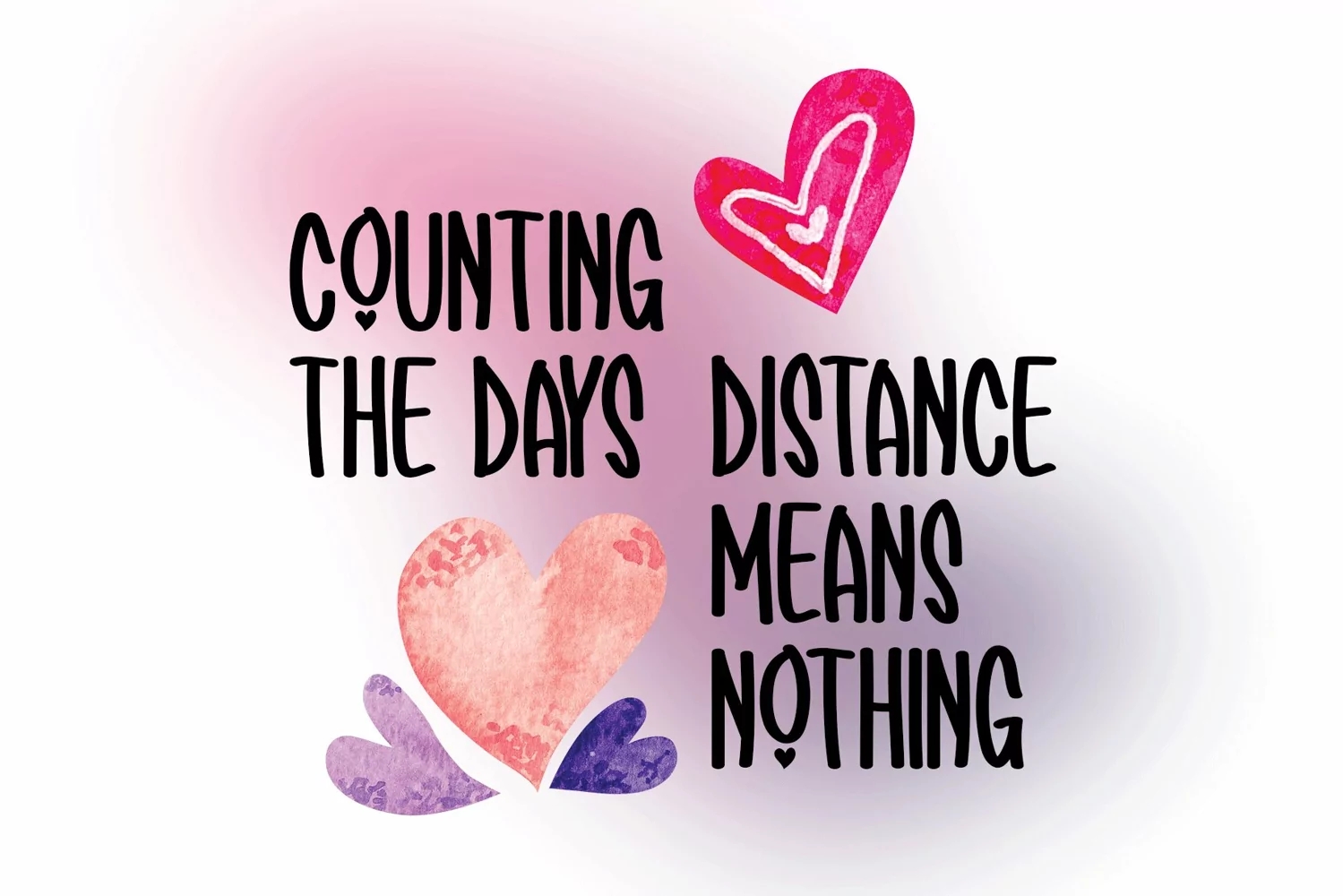
Introducing Magical Moment!
Magical Moment is a captivating display font designed to infuse charm and personality into your projects. Its smooth, elegant curves make it a versatile choice for branding, apparel, promotional materials, and more. Whether for special moments or casual use, this font effortlessly enhances any design with its playful and welcoming vibe.